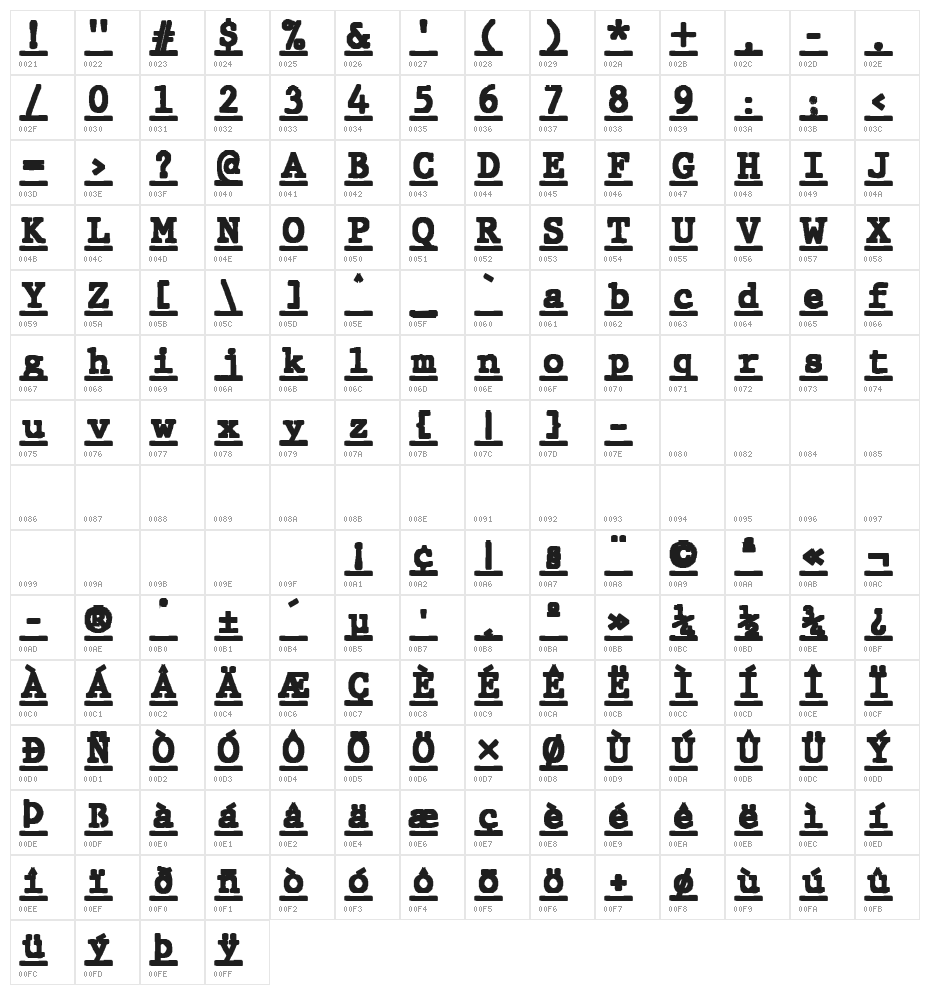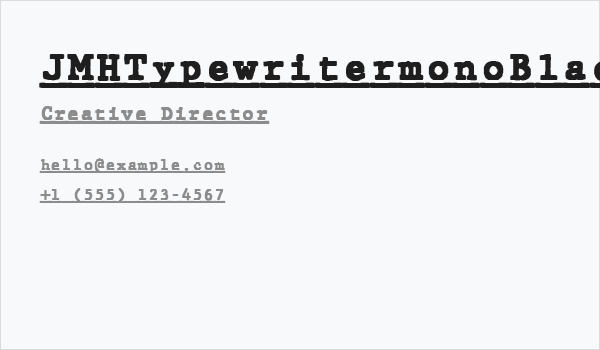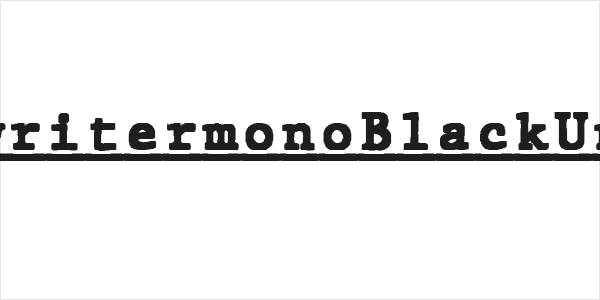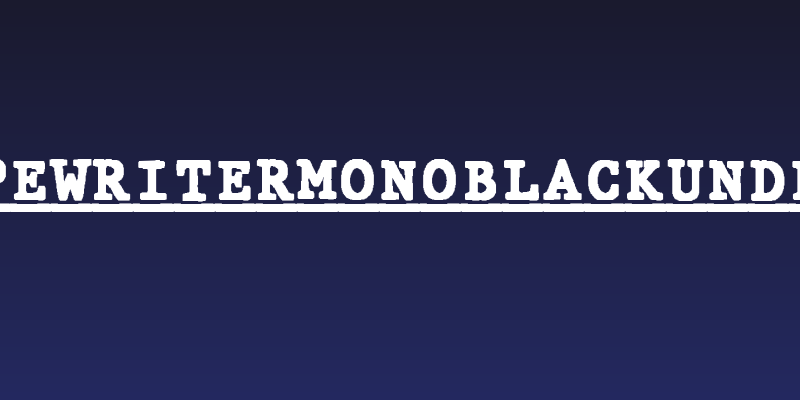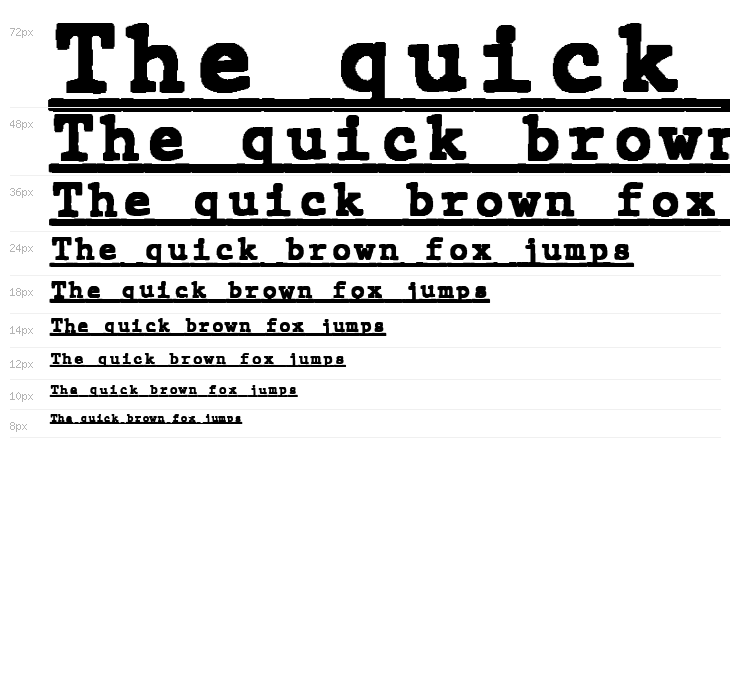
JMHTypewritermonoBlackUnder-Reg Font
JMHTypewritermonoBlackUnder-Reg Description
This font embodies the classic typewriter aesthetic with its monospaced, slab serif design. Each character is evenly spaced, creating a uniform and mechanical appearance reminiscent of vintage typewriters. The bold strokes and distinct serifs give it a strong presence, while the consistent width across all characters ensures clarity and legibility. The font's nostalgic charm is perfect for projects that require a retro or industrial feel. Its robust structure makes it suitable for both digital and print media, maintaining readability even at smaller sizes.
| Proposed Projects | Ideal for retro-themed designs, typewriter simulations, coding displays, and creative print materials. |